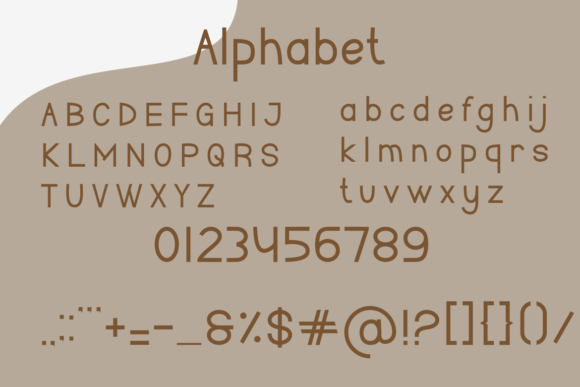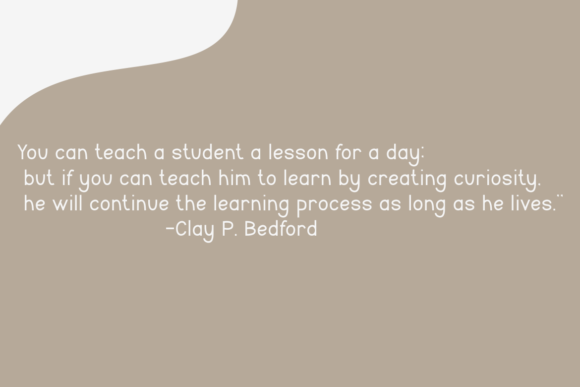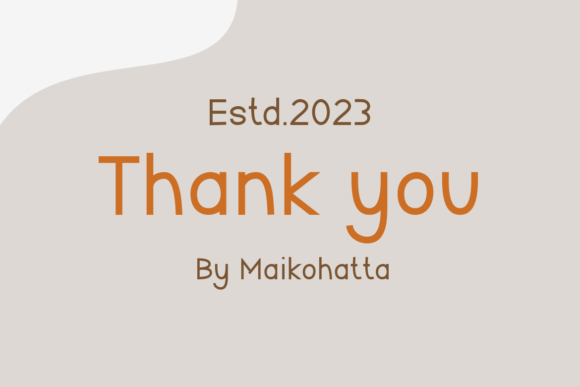
Introduction to Pitalic Font
Pitalic is a sans-serif font that is the perfect combination of modernity and elegance, designed to add a touch of sophistication to any project.
With clean lines and a refined appearance, each letter exudes a contemporary charm thatโs perfect for branding, logos, and other design elements .
Key Features of Pitalic Font
Why Choose Pitalic Font?